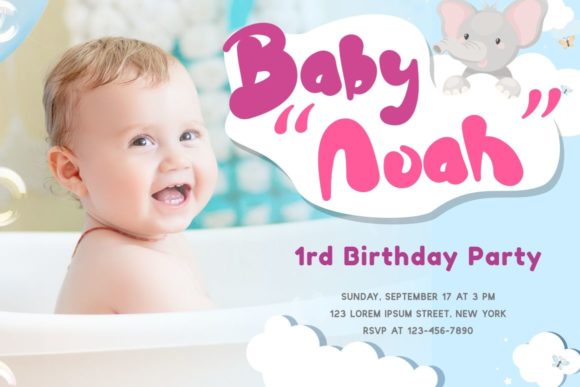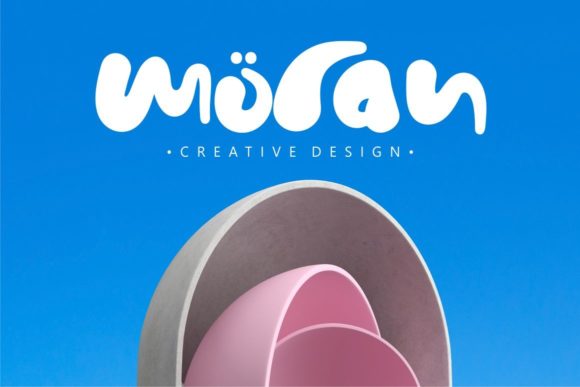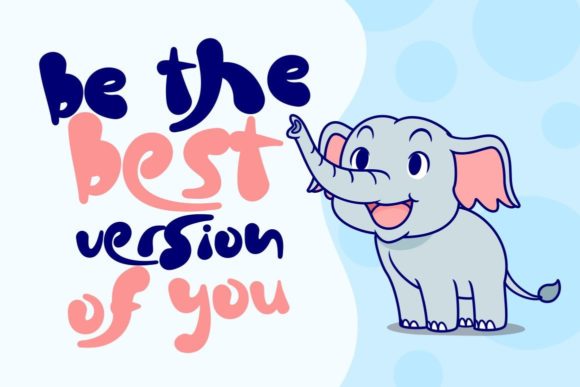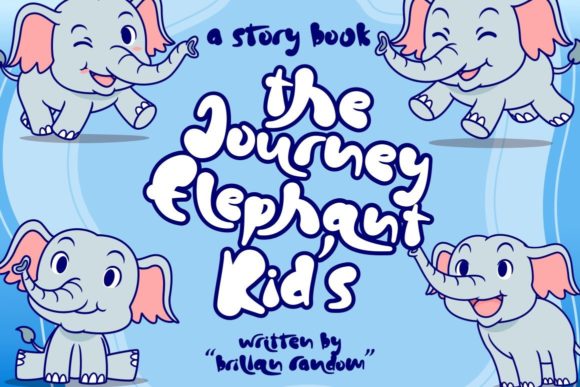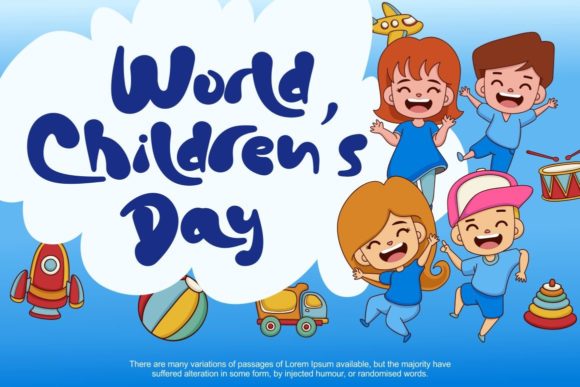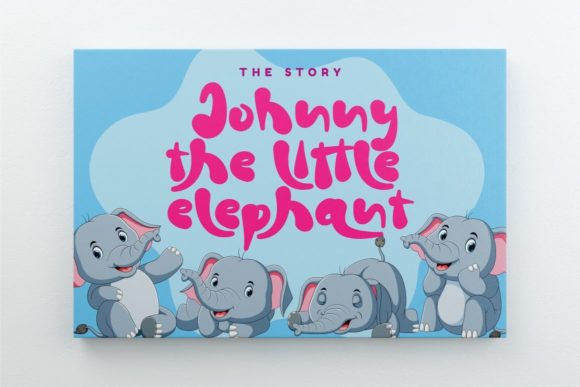
The Joy of Typography: Discovering the Chubby Elephant Font
Who hasn’t had that moment of pure creative bliss when they stumble upon the perfect font to match their project’s unique vibe? For me, it was the time I discovered the Chubby Elephant Font. Its adorable, playful style instantly made me want to create something fun and whimsical. I envisioned bright, colorful graphics, cheerful illustrations, and captivating headlines that would jump off the page.
The Chubby Elephant Font is a display font designed to bring a smile to your face. Its PUA encoding makes it easy to access all the glyphs and swashes, giving you endless possibilities for creative expression. Whether you’re designing a children’s book, a greeting card, or a social media campaign, this font is sure to add a touch of personality and charm.
Key Features of Chubby Elephant Font
- Unique Characteristics: The font features a distinctive, playful design with rounded edges and a chunky feel, making it ideal for use in children’s books, menus, and other applications where a friendly, approachable tone is desired
- Font Style: The font comes in both regular and bold styles, allowing for a range of design options
- Language Support: The font supports a wide range of languages, including English, Spanish, French, German, Italian, and many others
Designer Review: Chubby Elephant Font
Overall, I was excited to try out the Chubby Elephant Font, but my experience was a mixed bag. Here’s what I think works well: ✨ The font’s playful, whimsical feel is perfect for creating a fun and lighthearted atmosphere. It’s great for branding and design projects that require a touch of personality. The font also includes a wide range of characters, including numerals, punctuation, and special characters, making it a solid choice for everyday use.
However, there are some limitations: ⚠️ The font’s bold and italic styles could be improved – they feel a bit rough around the edges. Additionally, the font’s legibility at smaller sizes could be better. While it’s still readable, the text may appear fuzzy or distorted at very small font sizes.
Design Considerations:
- Best for: Branding, design projects, and materials where a playful atmosphere is desired.
- Not ideal for: Large blocks of text, or situations where high legibility is crucial.
Overall, I’d say the Chubby Elephant Font is a decent choice for the right projects, but it may not be the best fit for more formal or high-stakes design work. With some tweaks to the bold and italic styles, and a bit more attention to legibility, this font could be a real winner.
The Chubby Elephant Font is perfect for:
- Children’s books and educational materials
- Advertising and marketing materials for family-friendly brands
For optimal results, use the Chubby Elephant Font in combination with bright, playful colors and whimsical illustrations.